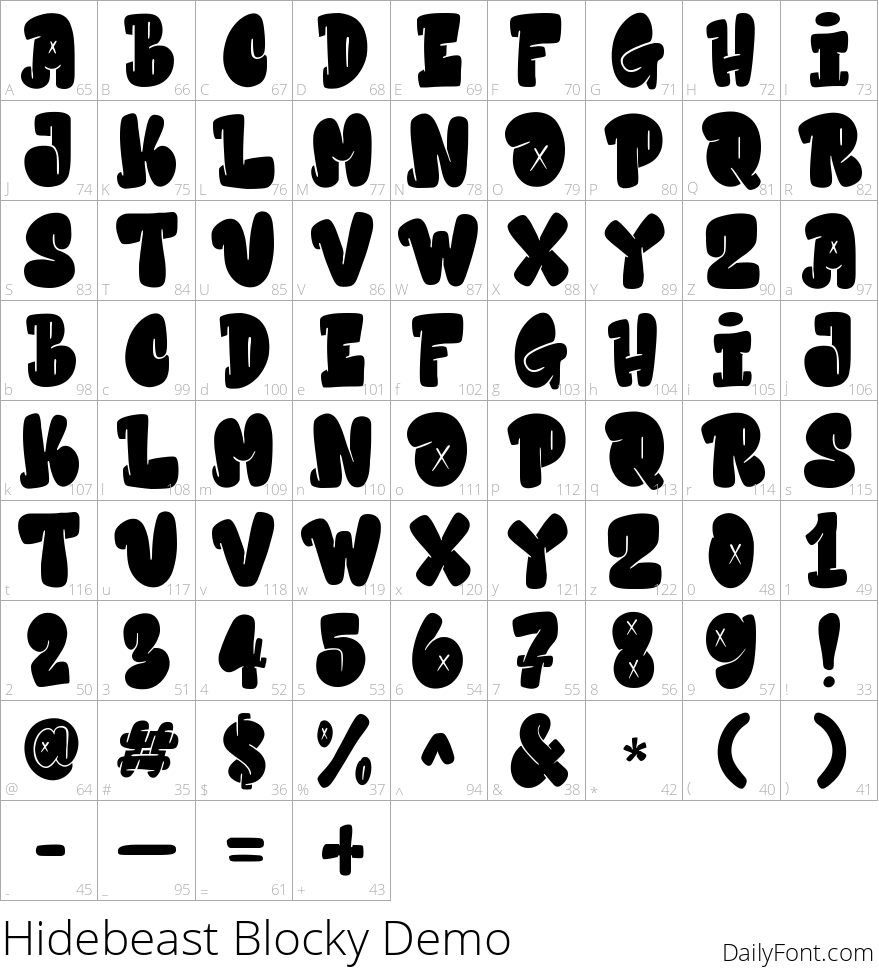
Hidebeast
Hidebeast is a striking Bold Graffiti Display Font that captures attention with its unique style. Designed for a variety of creative applications, this font is perfect for product packaging, branding projects, and eye-catching magazine layouts. Its urban aesthetic makes it ideal for social media posts and wedding invitations, allowing you to add a personal touch to your words against vibrant backgrounds.
Whether you’re looking to make a statement in your next advertising campaign or simply want to express your creativity through text, Hidebeast is the font that delivers. The bold strokes and artistic flair of this display font ensure that your message stands out in any context, making it an essential addition to your design toolkit. With its versatility and compelling visual appeal, Hidebeast invites users to explore more dynamic and expressive forms of communication in their work.